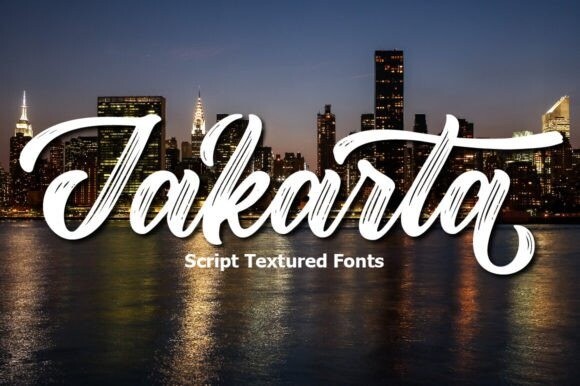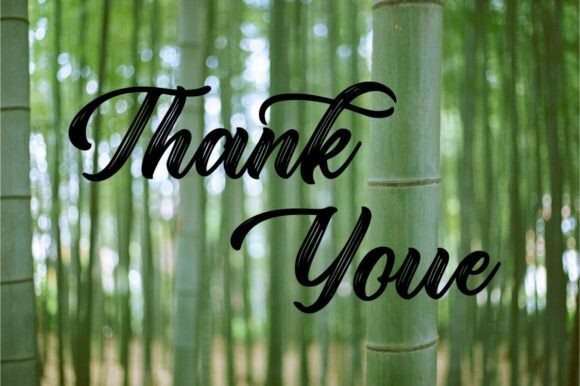
Jakarta Brush Typeface
Jakarta Brush Font is a gorgeous and bold handwritten font, crafted to give your headlines and logotype projects a stylish touch. This font reads as strong, confident, and dynamic and can add tons of nostalgic character to your designs.